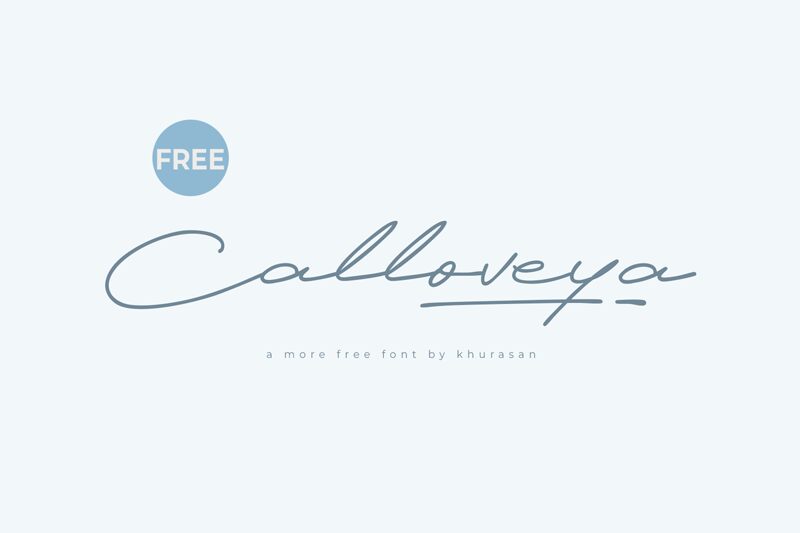
Calloveya
Calloveya, a creation by the talented Khurasan, is a font that exudes elegance and personal touch. Its handwritten style instantly adds a layer of intimacy and individuality to any project. The light weight of Calloveya's strokes gives it an airy, delicate feel that is both sophisticated and approachable.
The fluid continuity between letters mimics the natural flow of ink on paper, making it particularly alluring for invitations, branding, and editorial designs where a touch of finesse is desired. Calloveya's aesthetic appeal lies in its ability to convey warmth and authenticity—qualities that are highly sought after in design work aiming to create a personal connection.
Versatile in its simplicity yet brimming with character, this font holds immense potential for those looking to inject subtle elegance into their creative endeavors. Whether it's digital content or print media, Calloveya stands out as an ideal choice for designers aspiring to craft visually compelling narratives with a human touch.